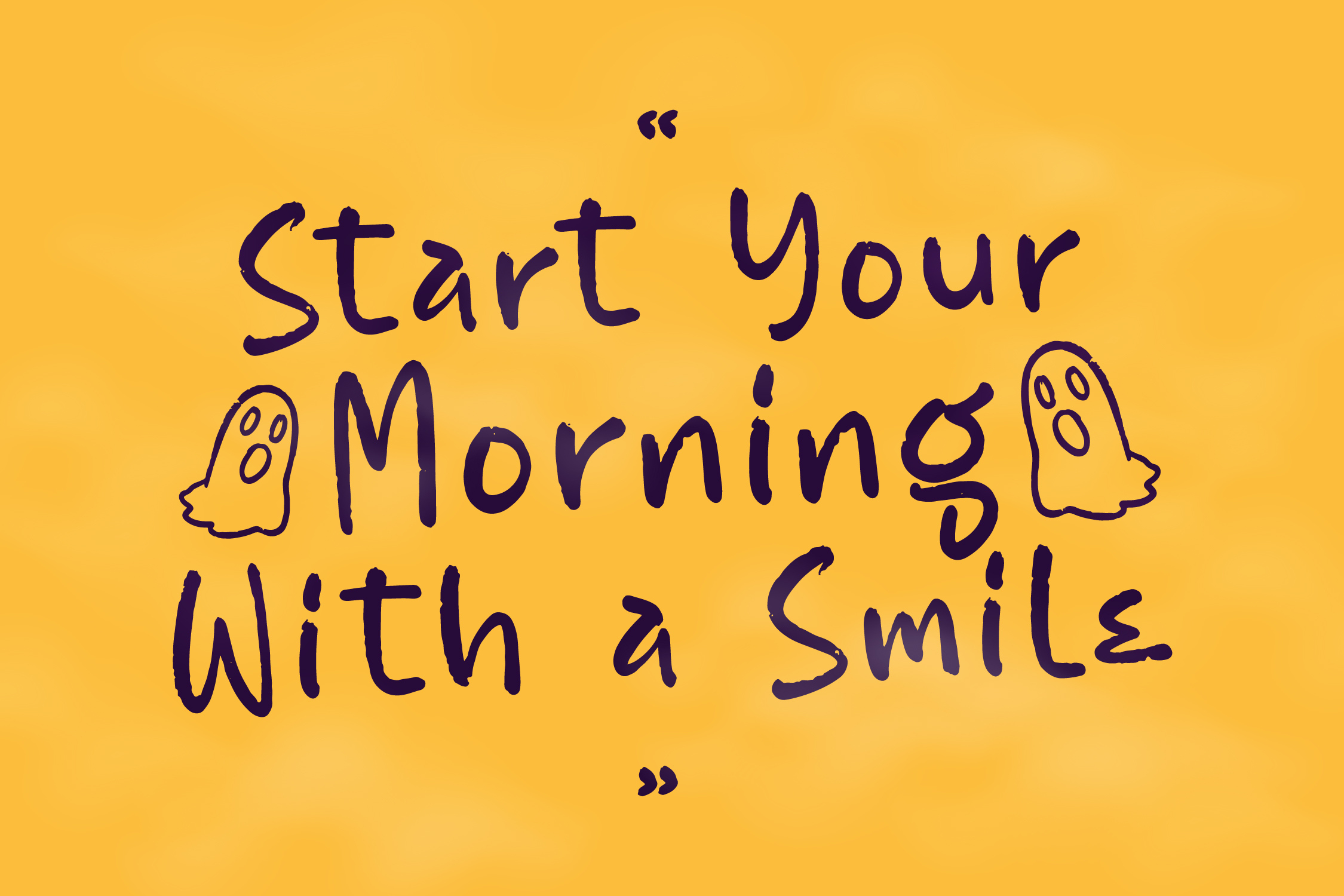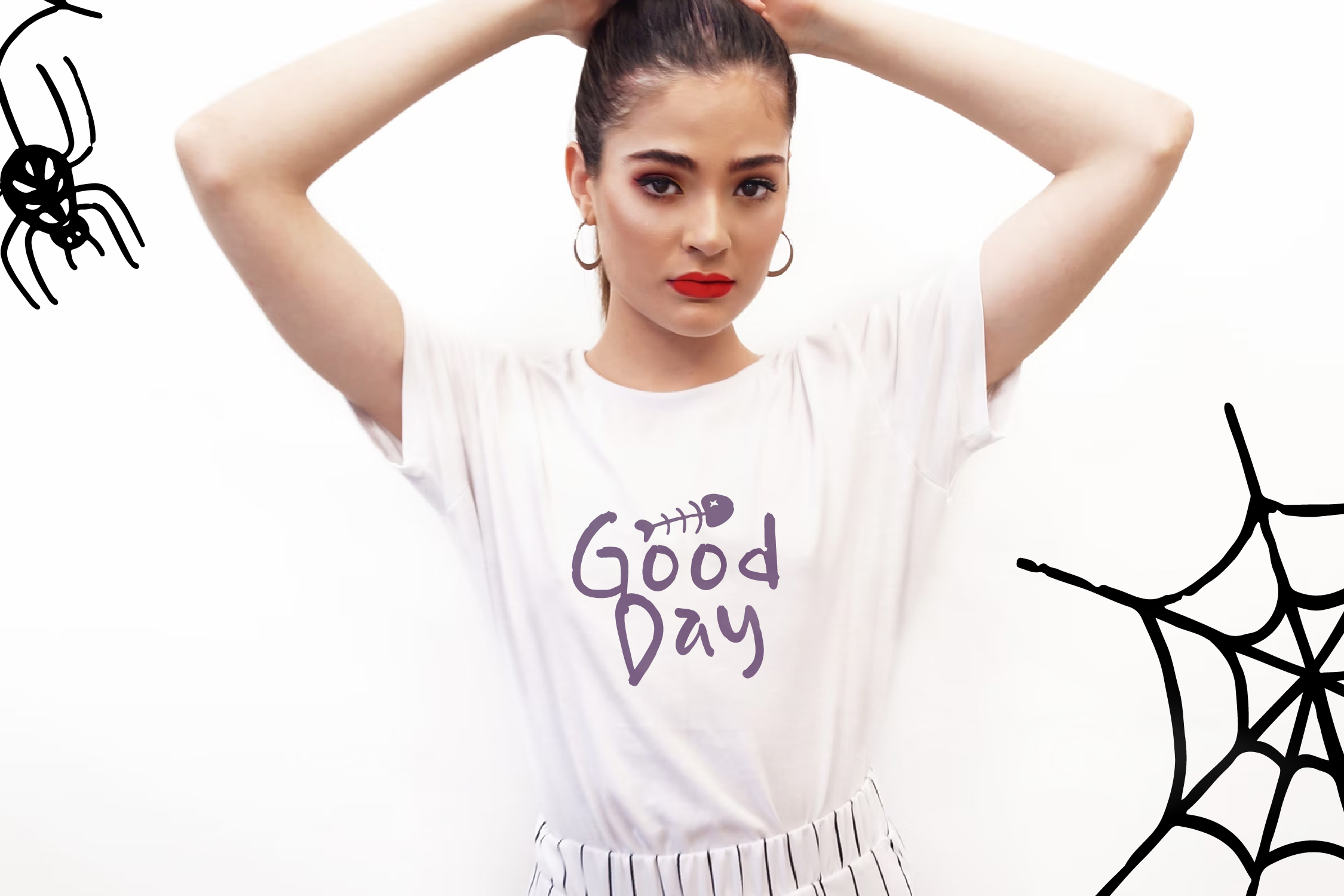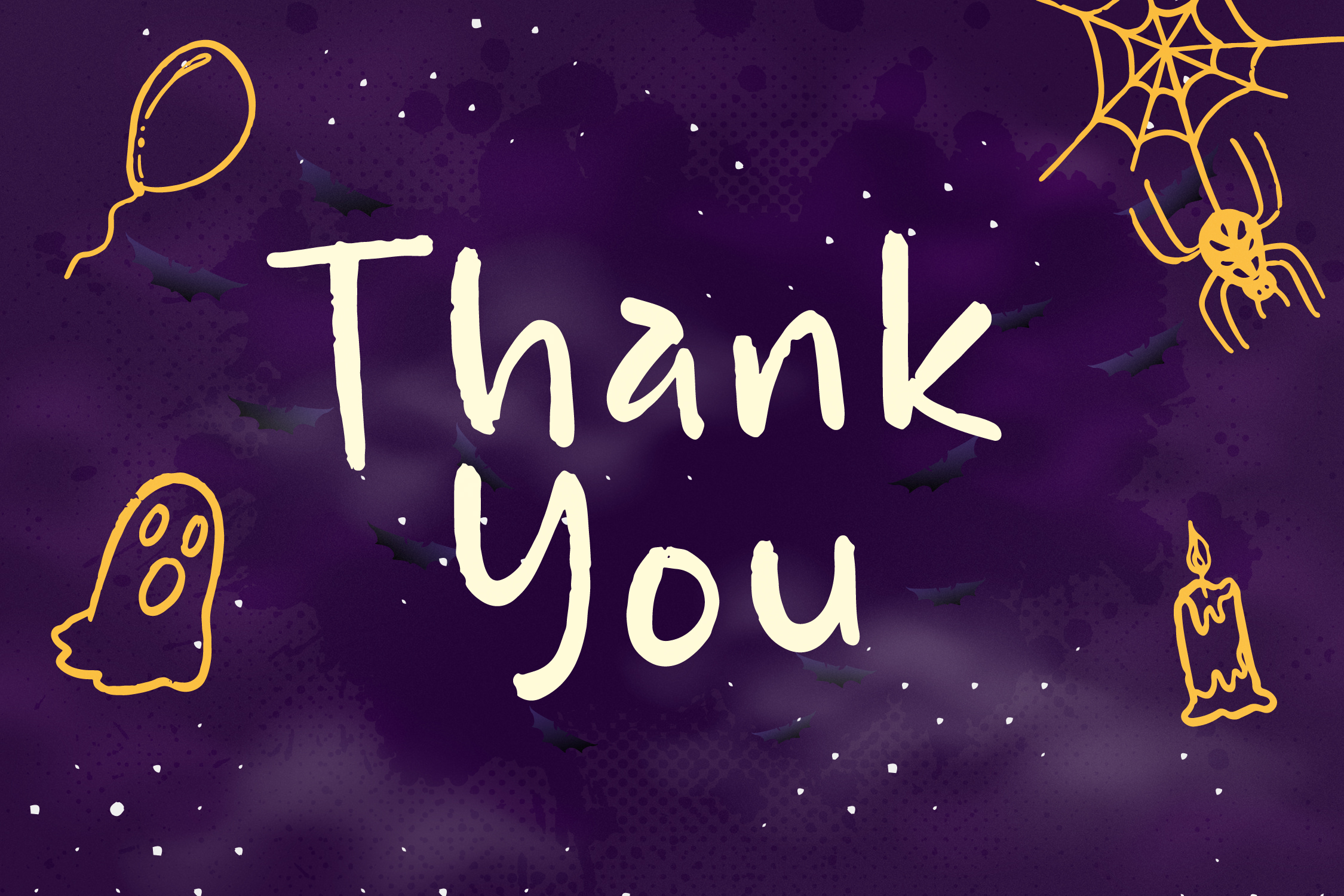
Caroline Display Font
It’s cute spooky handwritten font, suitable for any projects such as: logos, branding projects, homeware designs, product packaging, mugs, quotes, posters, shopping bags, t-shirts, book covers, name card, invitation cards, greeting cards, label, photography, watermark, special events, and all your other lovely projects that need a beautiful script taste.